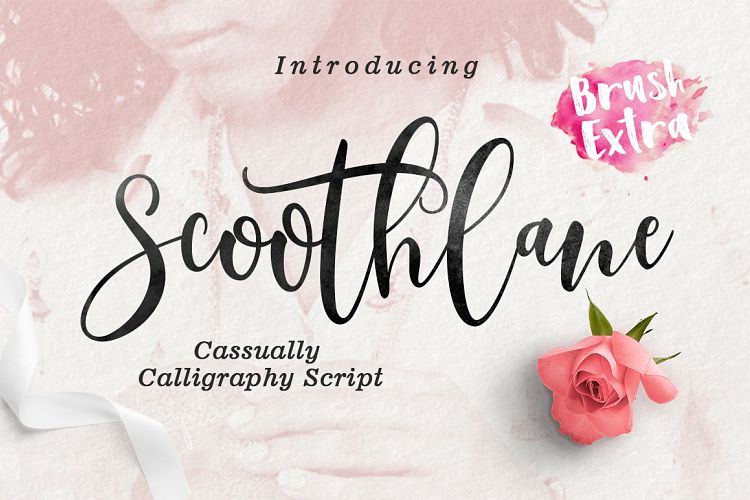
Scoothlane Script Font
Hello friend! A stylish handwritten with calligraphy style! It’s very easy to use without taking your time. And makes it easy for you to make lots of creations easily. Introducing Scoothlane Font! It is was designed and shares by MERCURIAL. Scoothlane Script Font – a script with soft letters with funny lines and very unique lines are also full of passion.and comes with a brush letter that will make you more excited for your fabulous design touch.
Scoothlane perfect for adding a fresh & unique look to company branding, logos, greetings, magazine layout, homeware, prints and invitations.